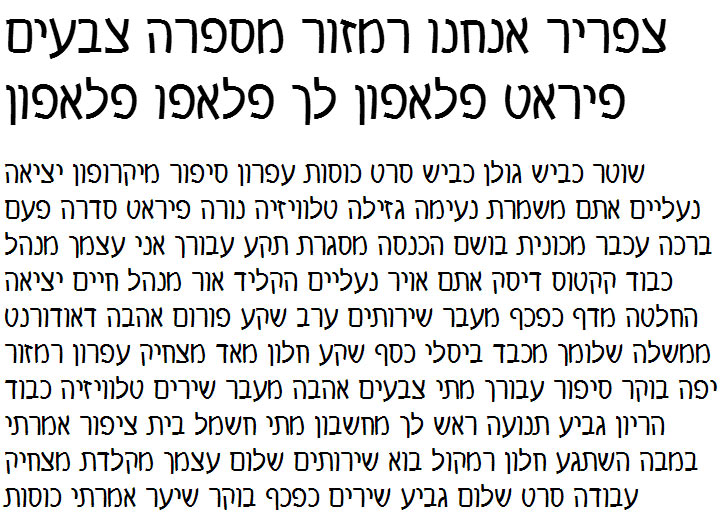
Yoav is most popular/used font in the State of Israil. Project name of this font is Yoav. Personaly feel free to use Yoav but when you use this font commercially please contsct- Copyright ฉ 1998-2003 Meir Sadan <meir@sadan.com>.
✓ A successful font is mainly a simple, readable font, with a good differentiation between its letters. In my opinion, the previous version of this face wasn't very successful, but in spite of that I found many people using it. In the improvement process this typeface has gone through, other than the addition of Nikud and some technical improvements, the letters themselves have been widened, and instead of three weights, I created two "intermediate" weights which are the new "regular" and "bold". The font is named after a very good friend of mine.
Yoav Hebrew Font
ื™ื•ืื‘ ื”ื•ื ื”ืคื•ื ื˜ ื”ืคื•ืคื•ืœืจื™/ืžืฉื•ืžืฉ ื‘ื™ื•ืชืจ ื‘ืžื“ื™ื ืช ื™ืฉืจืืœ. ืฉื ื”ืคืจื•ื™ืงื˜ ืฉืœ ื”ื’ื•ืคืŸ ื”ื–ื” ื”ื•ื ื™ื•ืื‘. ื‘ืื•ืคืŸ ืื™ืฉื™ ืืœ ืชื”ืกืก ืœื”ืฉืชืžืฉ ื‘ื™ื•ืื‘ ืืš ื›ืืฉืจ ืืชื” ืžืฉืชืžืฉ ื‘ื’ื•ืคืŸ ื–ื” ื‘ืื•ืคืŸ ืžืกื—ืจื™ ืื ื ืฆื•ืจ ืงืฉืจ- ื–ื›ื•ื™ื•ืช ื™ื•ืฆืจื™ื 1998-2003 ืžืื™ืจ ืกื“ืŸ .
โœ“ ืคื•ื ื˜ ืžื•ืฆืœื— ื”ื•ื ื‘ืขื™ืงืจื• ืคื•ื ื˜ ืคืฉื•ื˜ ื•ืงืจื™ื, ืขื ื”ื‘ื—ื ื” ื˜ื•ื‘ื” ื‘ื™ืŸ ื”ืื•ืชื™ื•ืช ืฉืœื•. ืœื“ืขืชื™, ื”ื’ืจืกื” ื”ืงื•ื“ืžืช ืฉืœ ื”ืคื ื™ื ื”ื–ื• ืœื ื”ื™ื™ืชื” ืžื•ืฆืœื—ืช ื‘ืžื™ื•ื—ื“, ืื‘ืœ ืœืžืจื•ืช ื–ืืช ืžืฆืืชื™ ื”ืจื‘ื” ืื ืฉื™ื ืฉืžืฉืชืžืฉื™ื ื‘ื”. ื‘ืชื”ืœื™ืš ื”ืฉื™ืคื•ืจ ื”ื’ื•ืคืŸ ื”ื–ื” ืขื‘ืจ, ืžืœื‘ื“ ื”ื•ืกืคืช ื ื™ืงื•ื“ ื•ื›ืžื” ืฉื™ืคื•ืจื™ื ื˜ื›ื ื™ื™ื, ื”ืื•ืชื™ื•ืช ืขืฆืžืŸ ื”ื•ืจื—ื‘ื•, ื•ื‘ืžืงื•ื ืฉืœื•ืฉ ืžืฉืงืœื™ื ื™ืฆืจืชื™ ืฉืชื™ ืžืฉืงืœื•ืช "ื‘ื™ื ื™ื™ื" ืฉื”ืŸ ื”ื—ื“ืฉื•ืช ื”"ืจื’ื™ืœื•ืช" ื•" ื ื•ึนืขึธื–". ื”ื’ื•ืคืŸ ื ืงืจื ืขืœ ืฉื ื—ื‘ืจ ื˜ื•ื‘ ืžืื•ื“ ืฉืœื™.